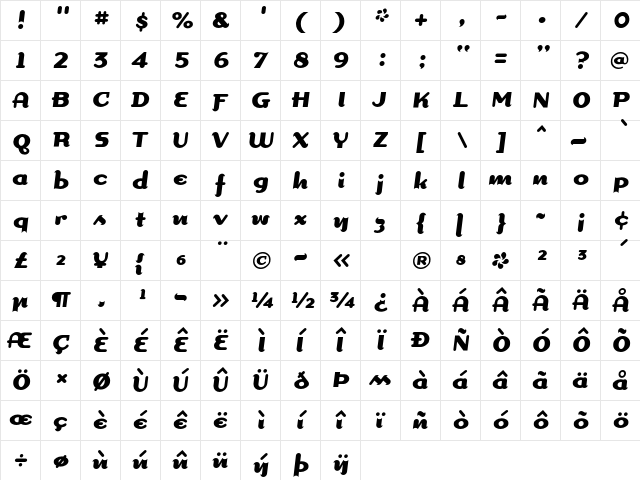
Dogma Script Script Font Preview
Dogma Script Script
Dogma Script Script Font Details
| Style | Script |
Design Context for Dogma Script Typeface
Dogma Script brings a calligraphic fluidity to the page — its connecting strokes and expressive curves give it an unmistakably human quality.
Font Pairing: Combine Dogma Script with a simple geometric sans for maximum contrast — the tension between flowing curves and clean structure is a classic typographic pairing.
Pro Tip: Use Dogma Script for short runs of text — names, titles, or taglines. Extended body copy in script faces tires the eye quickly.